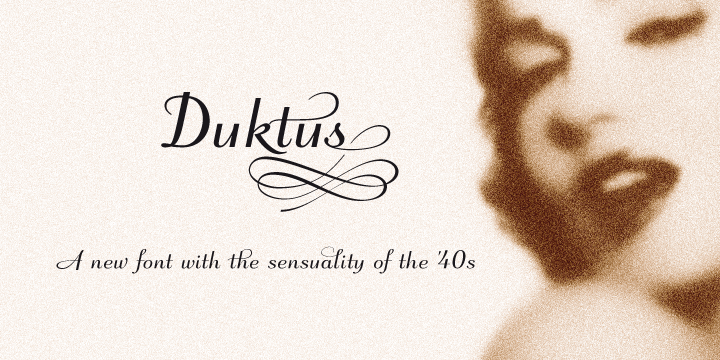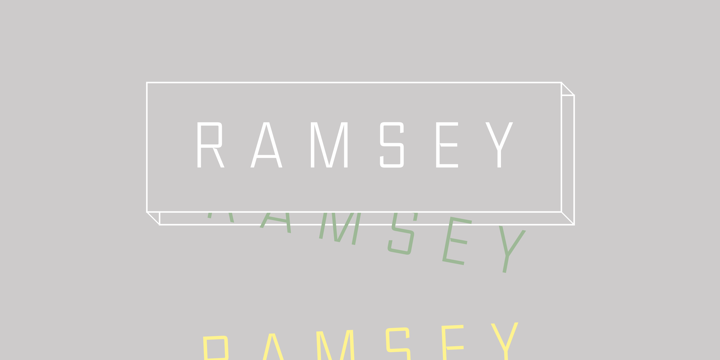
Klipa is a typeface created by Alberto DiSanto and published by Eurotypo that is ideal for display, headline, logotype, poster etc.
Talis is a sans-serif typeface created by Olcar Alcaide and published by Eurotypo. Talis family has 30 fonts perfect for packaging, poster, magazine, headline. You cannot miss it!
CDuflos is an handwritten typeface created by Oscar Alcaide and published by Eurotypo. You’ll find a set of decorative glyphs, ligatures, alternates, swashes and sets of ornaments. Enjoy!
Ramsey is a typeface created by Michael Cina and published by Associated Typographics. If you are looking for a font perfectly for print and web, you found it! It has strong structure and warm personality. You will acquire 12 fonts that you’ll use in your future projects.
Duktus is a typeface created by Olcar Alcaide and published by Eurotypo. It is a font with a 1940′s flavour with plenty of alternates, letters not quite connected, having large. A typeface you cannot miss!
Zanya Q is a beautiful handwriting typeface created by Carine de Wandeleer and published by Eurotypo in 2012.